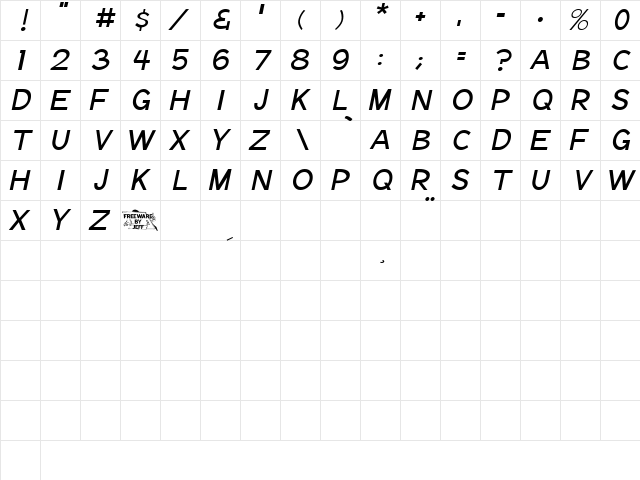
Notation Italic Light JL Regular Font Preview
Design Context for Notation Italic Light JL Typeface
Notation Italic Light JL is a composed and adaptable typeface that performs quietly and consistently across a wide range of design contexts. The dynamic lean of this cut emphasises speed and emphasis in any layout. The delicate stroke weight brings airiness and refinement to layouts.